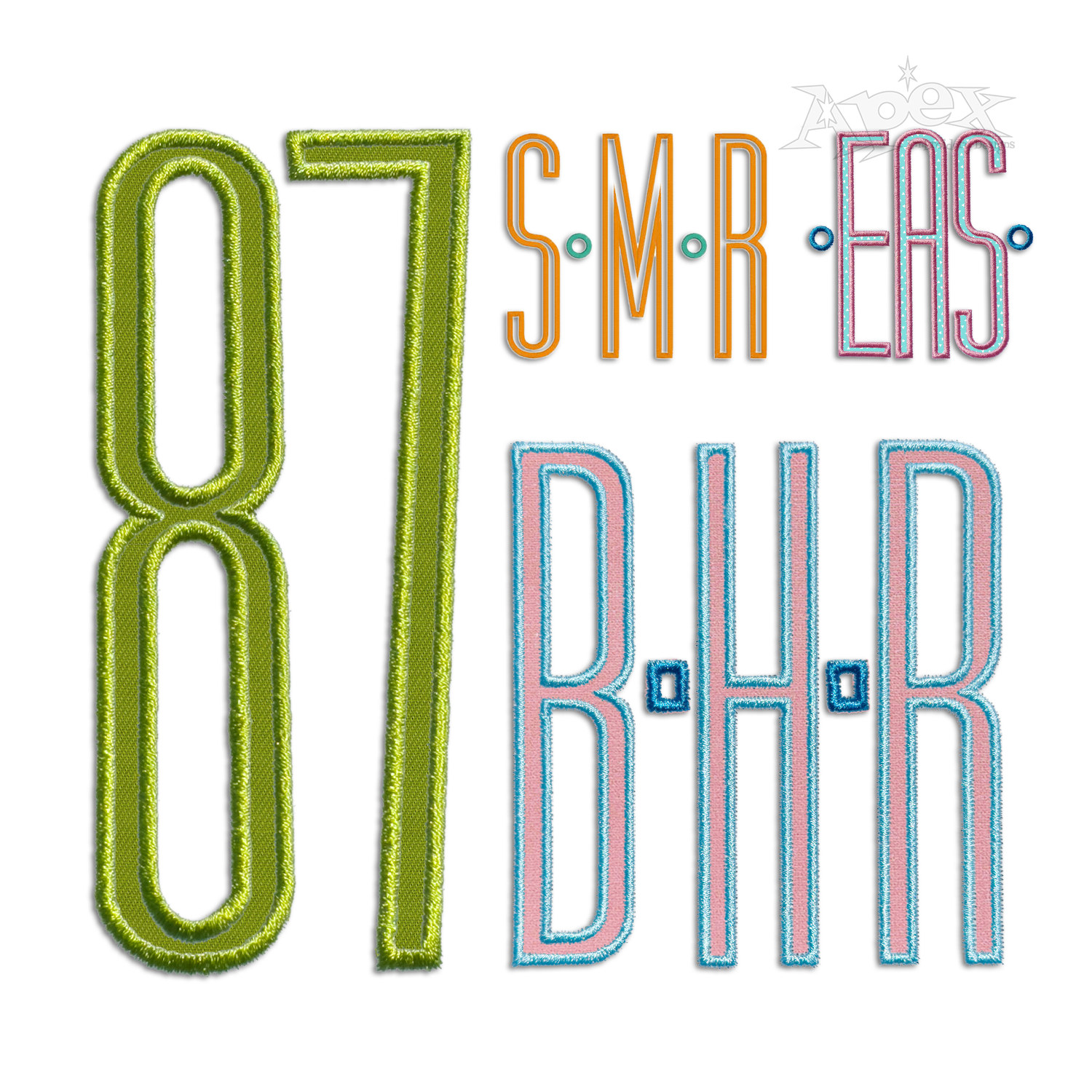
Sagano Grove Applique Font
There is an effortless serenity in tall, tranquil groves where daylight filters softly through sculptural canopy lines—a feeling captured in the majestic, organic contours of the Sagano Grove Applique Font. Conceived for creators who desire expansive, architectural impact without losing delicate charm, this display alphabet pairs broad fabric panels with flawless border stitching. Whether framing heirloom florals, textured linen, or crisp seersucker, each letter transforms negative space into a canvas of bespoke embroidery art.
Project Ideas for Sagano Grove Applique Font
With its generous fabric windows and bold proportions, Sagano Grove makes a breathtaking statement across personal accessories and home textiles:
- Heirloom Nursery Quilts & Pillows: Showcase nostalgic vintage prints or Liberty of London florals within the letter centers for an heirloom nursery treasure.
- Heavy Canvas Market Totes: Give classic canvas tote bags and weekender duffles a striking, bespoke resort-wear look.
- Luxury Bath & Pool Towels: Apply bold, quick-drying waffle or terry fabric appliqués on plush bath sheets for a personalized estate aesthetic.
- Custom Holiday & Milestone Banners: Use the stately numbers to craft celebratory birthday wall banners, wedding date keepsakes, or festive home decor.
- Statement Loungewear: Position a single graphic initial on the back of a cozy flannel robe or oversized sweatshirt for elevated casual gifting.
Because of its substantial proportions, Sagano Grove thrives where it has room to command the canvas:
- Center Chest & Quilt Blocks: Center-aligned motifs balance naturally within 8x8-inch or 10x10-inch pieced blocks, creating stunning focal centerpieces.
- Centered Bag Panels: Position the top of a 5-inch or 6-inch initial approximately 2 to 3 inches below the tote bag trim for optimal visual weight.
- Lower Hem Corners: Position an angled single initial 4 inches diagonally from the finished corner of picnic throws and lightweight linen bed covers.
- Cushion Sham Centers: Float a 6-inch or 7-inch single-letter monogram squarely in the center of standard 20x20-inch Euro shams for tailored elegance.
Sagano Grove Applique Font Craft & Letterform Details
The beauty of an appliqué font lies in the tension between the framing stitch and the chosen fabric beneath. Sagano Grove was digitized with meticulously balanced transitions: the graceful swoops and dignified vertical stems feature clean running placement tracks, sure-handed material tack-down sequences, and a silky, dense satin stitch finish that cleanly encloses fabric edges to guard against fraying wash after wash.
Special attention was paid to corner turns and joint intersections to prevent stitch bunching, ensuring smooth machine run-time even on substantial 7-inch executions. The accompanying numeral set mirrors the graceful posture and open proportions of the alphabet, offering an exquisitely cohesive system for names, milestone birth years, and distinctive architectural monograms.